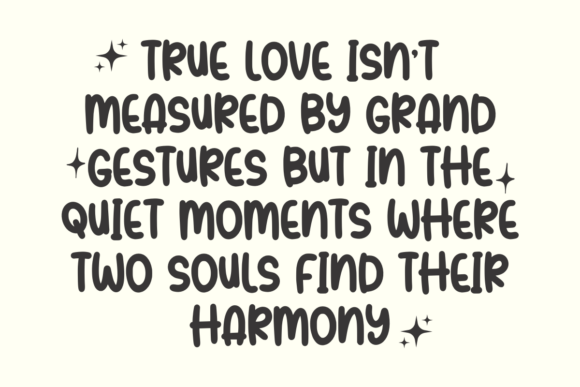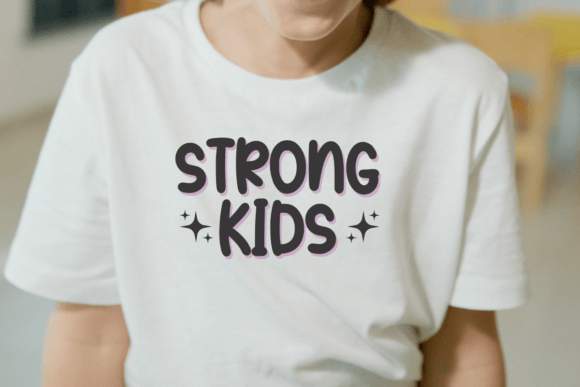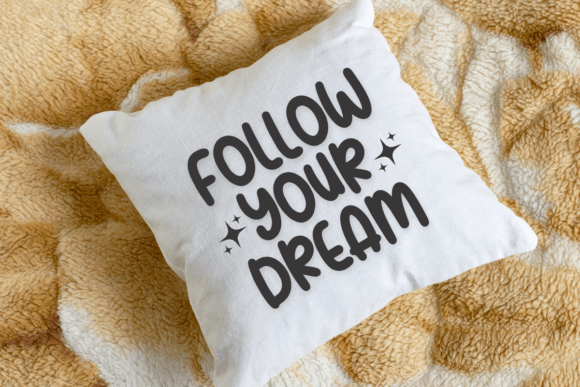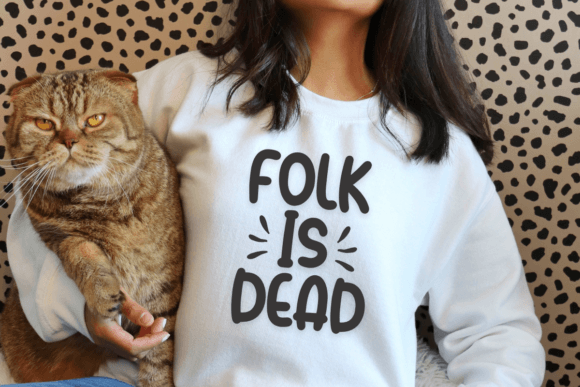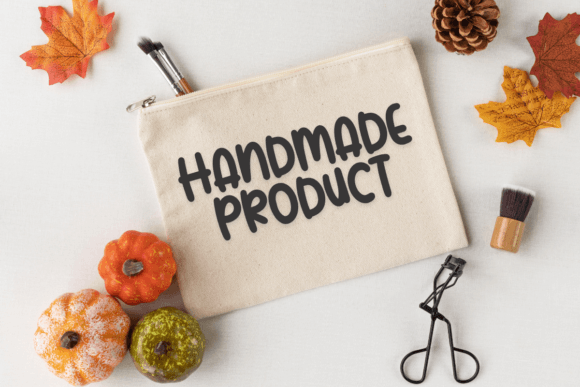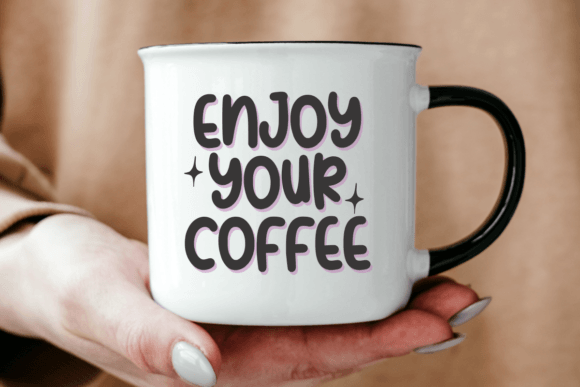
Introduction to Heart Grinch Font
As a designer, there’s nothing quite like the thrill of discovering a new font that sparks creativity and sets the tone for a project. You’re working on a festive holiday card, and you need a font that embodies the spirit of joy and cheer. That’s when you stumble upon the perfect match – the Heart Grinch Font. Its playful, rounded style and bold character make it an instant favorite for designers looking to add a touch of whimsy to their creative projects.
With its high-quality design and transparent background, the Heart Grinch Font is a valuable resource for designers seeking to elevate their work. Whether you’re working on a kids’ design, a festive craft, or a playful logo, this charming font is sure to bring a smile to your face and a touch of magic to your project. And the best part? It’s available for a free download, making it an accessible addition to any designer’s toolkit.
Key Features of Heart Grinch Font
- Unique and playful design, perfect for creative projects and holiday-themed designs
- High-quality font with a transparent background, ideal for use on any design resource
- Includes a range of characters, including uppercase and lowercase letters, numbers, and special symbols
- Perfect for adding a touch of whimsy and personality to your design, making it a great choice for creative projects and holiday-themed designs
Honest Review: Heart Grinch Font
As a designer, I’m always on the lookout for high-quality fonts to enhance my creative projects. The Heart Grinch Font caught my attention, and I decided to give it a try. Overall, I’m impressed with its unique design and versatility.
- High-quality design: The Heart Grinch Font has a crisp and clear appearance, making it perfect for digital designs.
- Limited font styles: The Heart Grinch Font only comes in a few font styles, which may limit its versatility for certain design projects.
- Not ideal for print design: The font’s design may not be suitable for print design, as it may not hold up well to high-resolution printing.
Overall, I’m impressed with the Heart Grinch Font, and I would recommend it for digital design projects. While it has some limitations, its unique design and free download make it a valuable resource for designers.
Use the Heart Grinch Font on a transparent background to create a sense of depth and dimension in your design. Experiment with different font sizes and colors to create visual interest.
The Heart Grinch Font is perfect for holiday-themed designs, such as Christmas cards and gift tags. It’s also great for creating a whimsical and playful feel in children’s designs, like party invitations and coloring books.